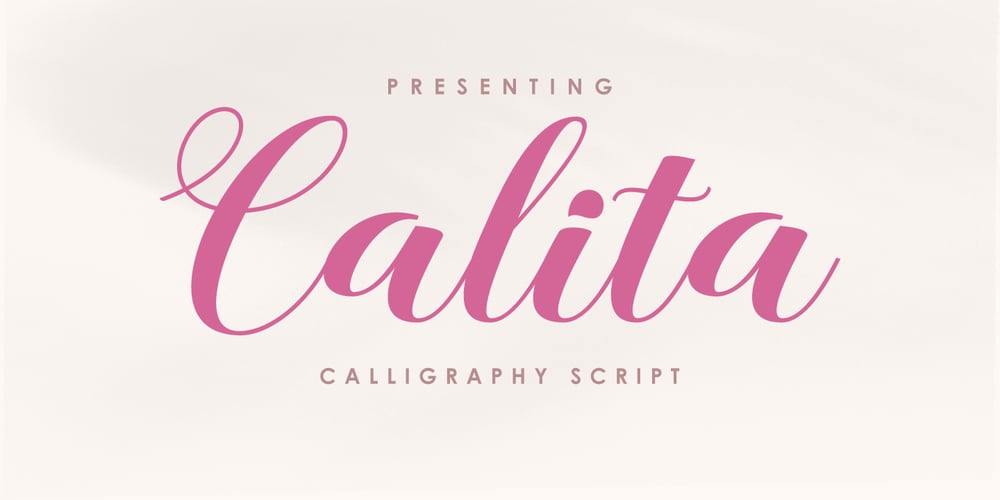
Calita Font Family was designed by khaidir and published by Gatype. Calita contains 1 styles and family package options. Calita Calligraphy Modern thick and firm style that you can get now! With character replacement styles updated with special glyphs that have been given a combination of fantasy and handwritten ink. This font will look beautiful on all designs, New Year designs, Weddings, branding materials, blog titles, quotes and invitations, and business cards.Open Type includes: Alternative Style Set style Swash To enable the OpenType Stylistic alternative, you need a program that supports OpenType features such as Adobe Illustrator CS, Adobe Indesign & CorelDraw X6-X7, and Microsoft Word 2010, or later.